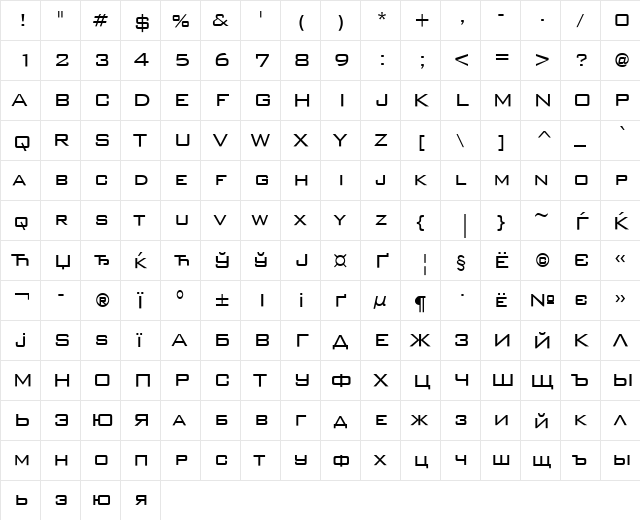
BankGothicCLtBT Regular Font Preview
BankGothicCLtBT Regular
BankGothicCLtBT Regular Font Details
Design Context for BankGothicCLtBT Typeface
BankGothicCLtBT has the quiet confidence of well-executed sans-serif typography: versatile, unobtrusive, and dependable at any size.
Font Pairing: Works well alongside a characterful serif or display font that can carry the expressive load while BankGothicCLtBT handles the functional copy.
Pro Tip: Pair BankGothicCLtBT with a display or serif font for headlines — its neutral character makes it an excellent supporting player in complex typographic systems.